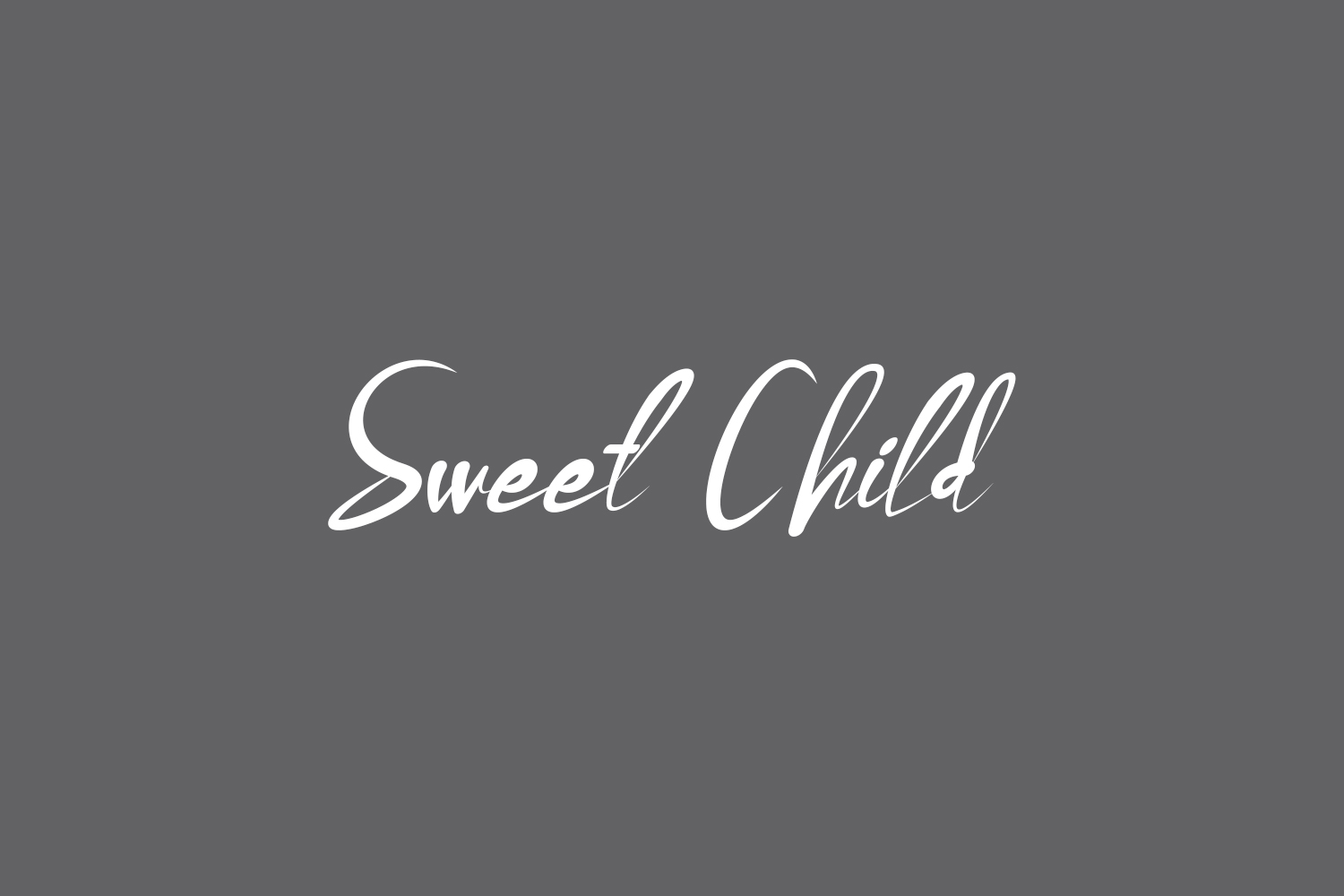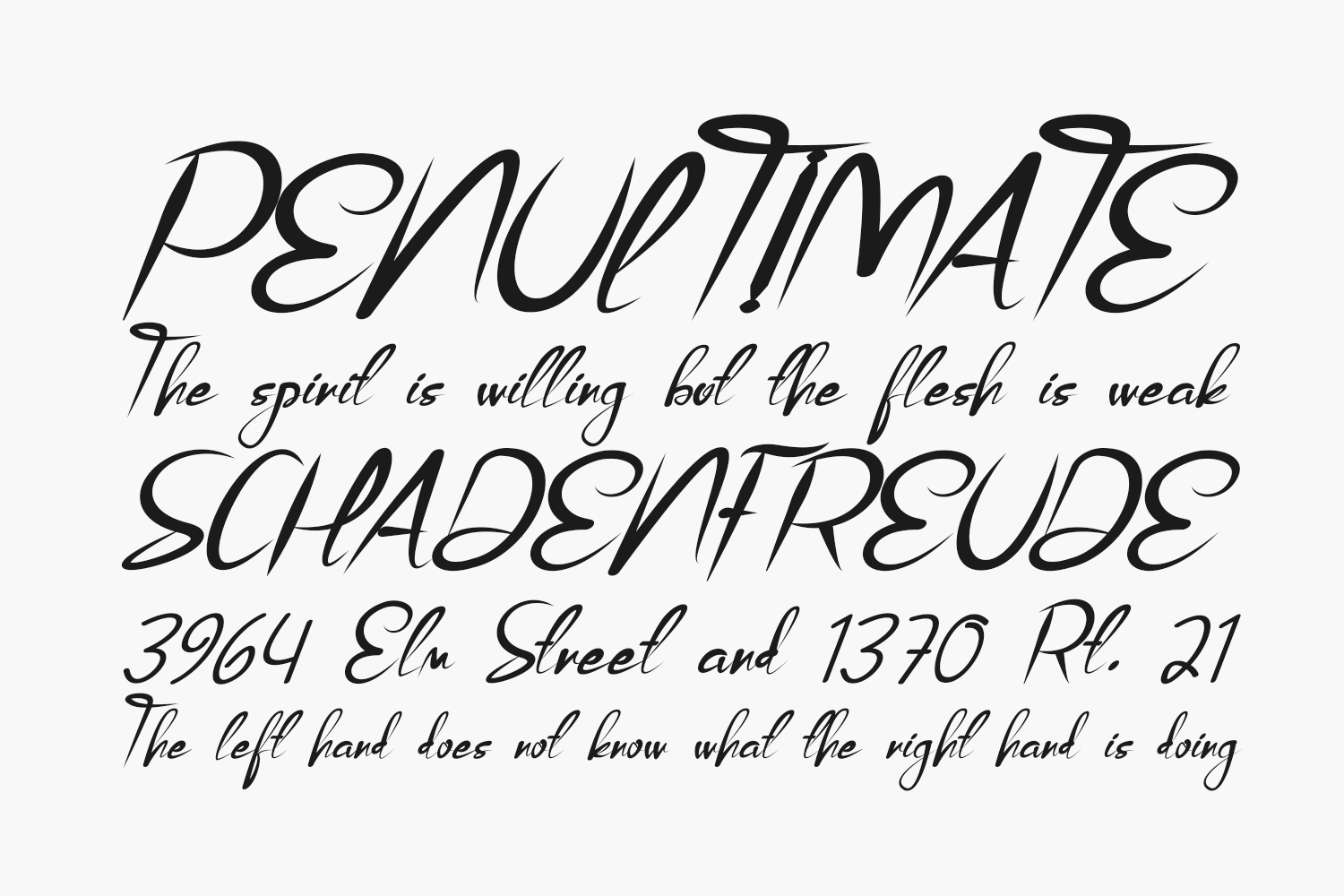
Sweet Child Free Font is a lovely and delicate script font that exudes elegance and class. This font was particularly crafted for those who need a beautiful and refreshing look to their designs. Hamburg Free Font is free for personal use only. Please purchase the full version for commercial use.